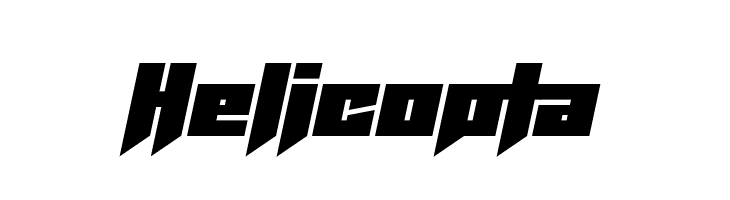
A bold, hollow, geometric font with strong outlines and blocky characters.
Bold, blocky font with a three-dimensional, collegiate style.
A bold, decorative font with a 3D effect and dotted texture.
A playful, hand-drawn font with elongated, whimsical letterforms.
A playful, outlined, and slightly italicized font with a bold, dynamic style.
A bold, elegant script font with flowing, interconnected characters.
A modern, italicized font with clean lines and balanced proportions.
A bold, italicized font with a modern and professional look.
A playful, hand-drawn font with a casual and friendly appearance.
A playful, modern font with elongated, curved strokes and a whimsical style.
A bold, handwritten font with dynamic strokes and playful curves.
A bold, playful font with a chemical theme and bubbly, irregular shapes.
A futuristic, geometric font with rounded edges and a bold, stencil-like appearance.
A glitch-inspired font with bold, distorted characters and a digital aesthetic.
Font made from silhouettes of military aircraft and helicopters.
A bold, rugged font with a stencil-like, handcrafted appearance.
A decorative and abstract font with geometric shapes and playful elements.
A novelty font where each character is a different airplane or helicopter illustration.
A bold, hand-drawn font with a rugged and energetic style.
A playful and whimsical font with bold, dynamic strokes and unique shapes.
A classic serif font with elegant curves and a timeless appearance.
A bold, modern sans-serif font with geometric influences and uniform stroke weight.
A modern, clean sans-serif font with rounded edges and uniform strokes.
A classic serif typeface with balanced proportions and medium contrast.
A clean, modern sans-serif font with balanced spacing and uniform stroke width.
A bold, modern font with strong strokes and a slight slant for dynamic appeal.
A bold, italicized sans-serif font with clean lines and modern appeal.
A classic serif font with elegant strokes and refined serifs.
A classic serif font with elegant strokes and refined design.
A playful, hand-drawn font with dynamic strokes and a whimsical style.